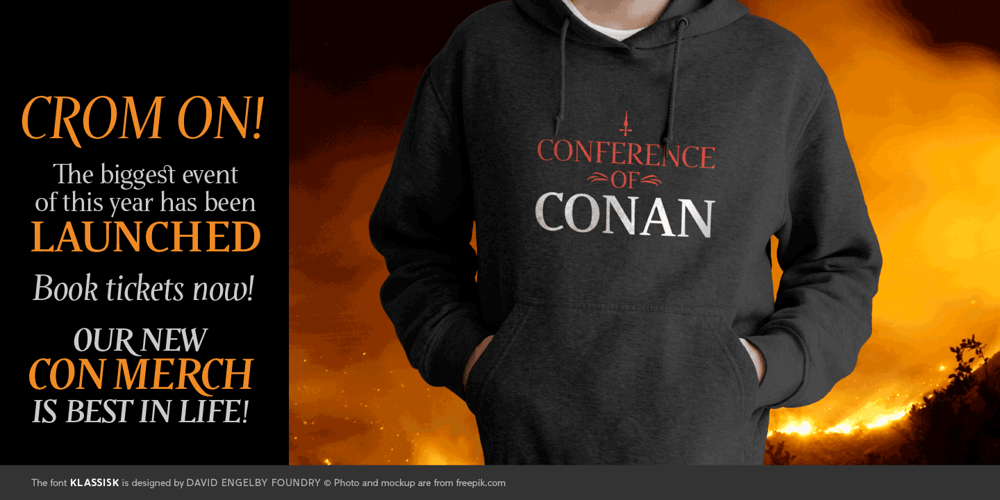
Klassisk Font Family was designed by David Engelby and published by David Engelby Foundry. Klassisk contains 6 styles and family package options. Klassisk is the Danish name for “classic” [’klasisg]. Taking its inspiration from a wide range of classic serif traditions, Klassisk can be your partner in crime for almost every kind of design job! It has the four classic weights PLUS two lighter display weights for headers and big letter sizes in general.Klassisk also comes with … a large variety in numerals (three styles) swashes and special ligatures a vibrant italic style.